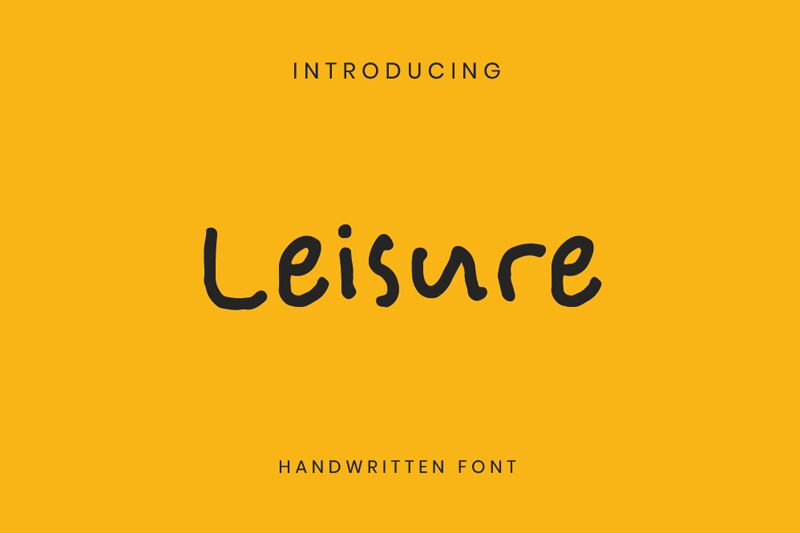
Leisure HF font family by Just Handwritten Font contains 2 font styles, and offers a relaxed handwritten aesthetic. Its casual, informal appearance evokes a friendly, approachable vibe that works well in both personal and professional projects.
Leisure HF is a free font family and is the perfect addition to contemporary design materials that aim to evoke an organic, personal feel. A versatile addition to your type arsenal, the font is suitable for lifestyle and leisure branding, posters, social media pages, letterheads, banners, and more.
Try it in application design, product packaging, e-reader materials, and hobbyist journals.